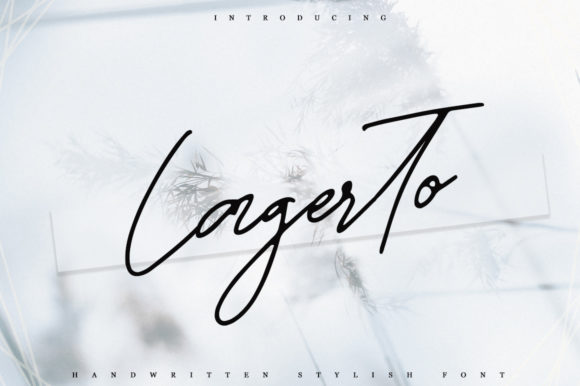
Lagerto Font
Immerse yourself in the enchanting world of Lagerto, a captivating script font that embodies the essence of authenticity and timeless elegance. Crafted with meticulous care by the renowned artist Katie Holland, Lagerto dances across your designs like a symphony of flowing strokes, adding a touch of undeniable charm to every masterpiece. Its delicate curves and graceful lines evoke a sense of warmth and familiarity, inviting you to unleash your creativity and weave captivating tales with each letter you pen.
With Lagerto's versatile nature, the possibilities are endless. Elevate your branding with a touch of sophistication, let your invitations shimmer with heartfelt elegance, or craft stunning social media posts that captivate your audience. Its handwritten charm lends an intimate touch to any project, adding a personal touch that resonates with your audience on a deeper level.
Lagerto is not just a font; it's an expression of your unique style, a window into your creative soul. It empowers you to craft designs that speak volumes, leaving an unforgettable impression on those who encounter them. Whether you're a seasoned graphic designer or a budding enthusiast, Lagerto will ignite your imagination and inspire you to create works of art that transcend the boundaries of the ordinary.
But beyond its aesthetic appeal, Lagerto is a font with a purpose. It's a tool for storytellers, for those who seek to connect with their audience on an emotional level. Its authentic charm invites readers to delve deeper into your words, creating a captivating experience that lingers long after they've finished reading.
So why settle for ordinary fonts when you can embrace the extraordinary? Choose Lagerto today and embark on a creative journey where authenticity and beauty intertwine. Let your designs bloom with the radiant spirit of Lagerto, and watch as your words and creations captivate the hearts of all who behold them.